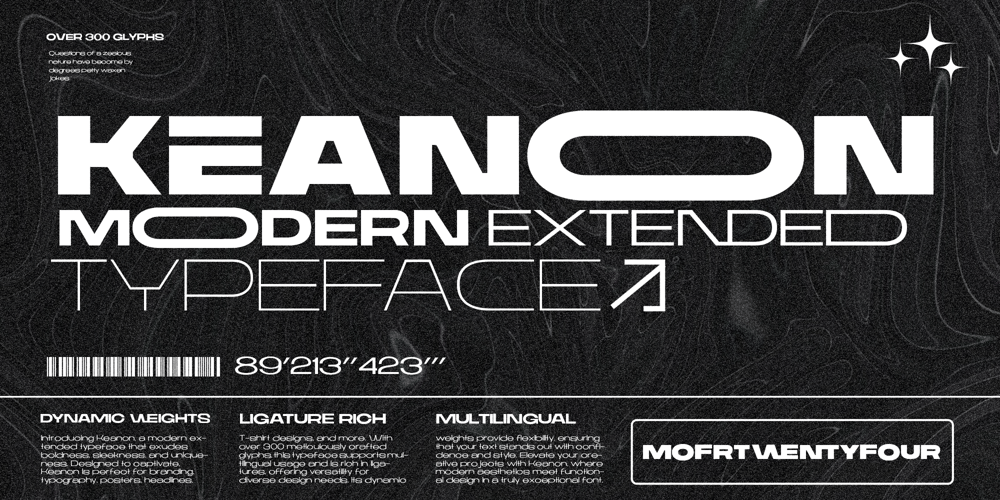
Keanon Font Family was designed by Mohamad Farhan Ramadhan and published by Mofr24. Keanon contains 9 styles and family package options. Introducing Keanon – a contemporary, elongated typeface breaking boundaries with its audacious, streamlined, and distinctive aesthetic. With a generous offering of more than 300 glyphs, Keanon is abundantly endowed with ligatures and speaks fluently in numerous languages, underscoring its extraordinary versatility. The varying boldness of its strokes caters to a myriad of artistic requirements – be it corporate identity crafting, glossy magazine layouts, captivating typography, eye-catching poster creation, engaging thumbnails, or even chic T-shirt graphics. Keanon’s signature flair turns any endeavor into a visual feast, infusing an aura of captivating professionalism into every project.